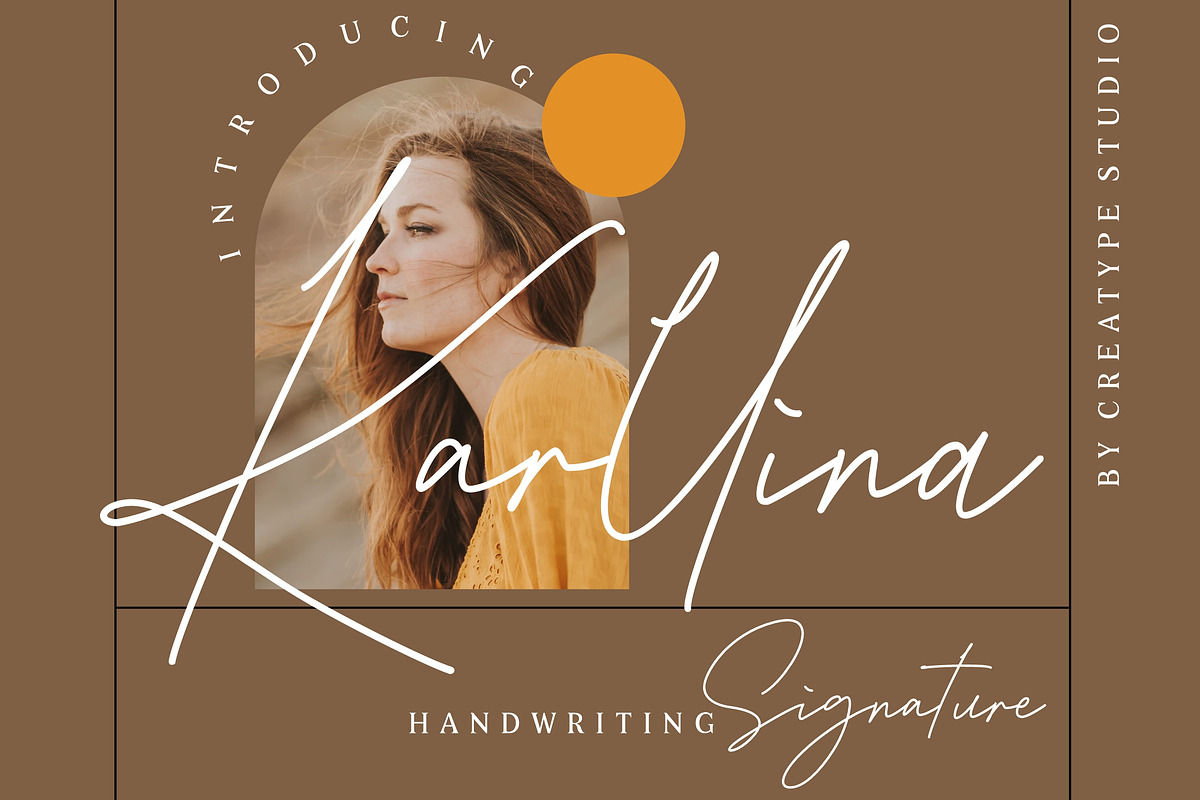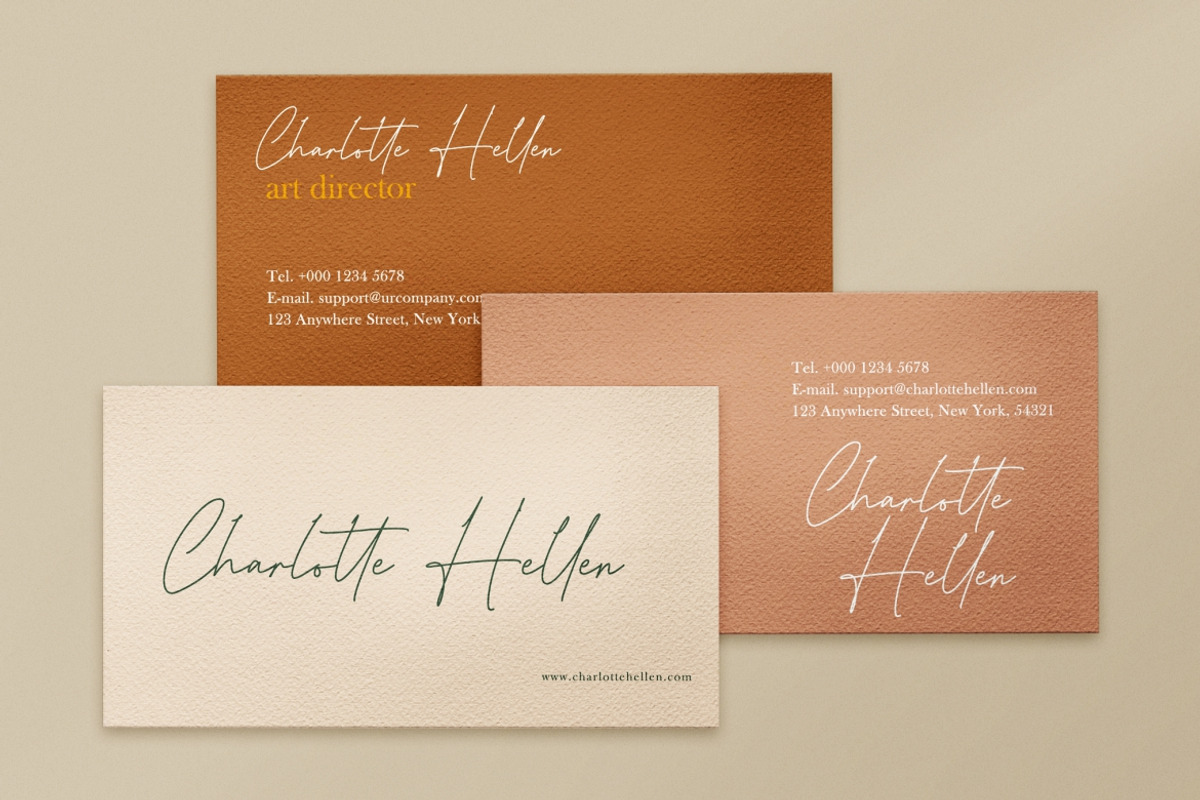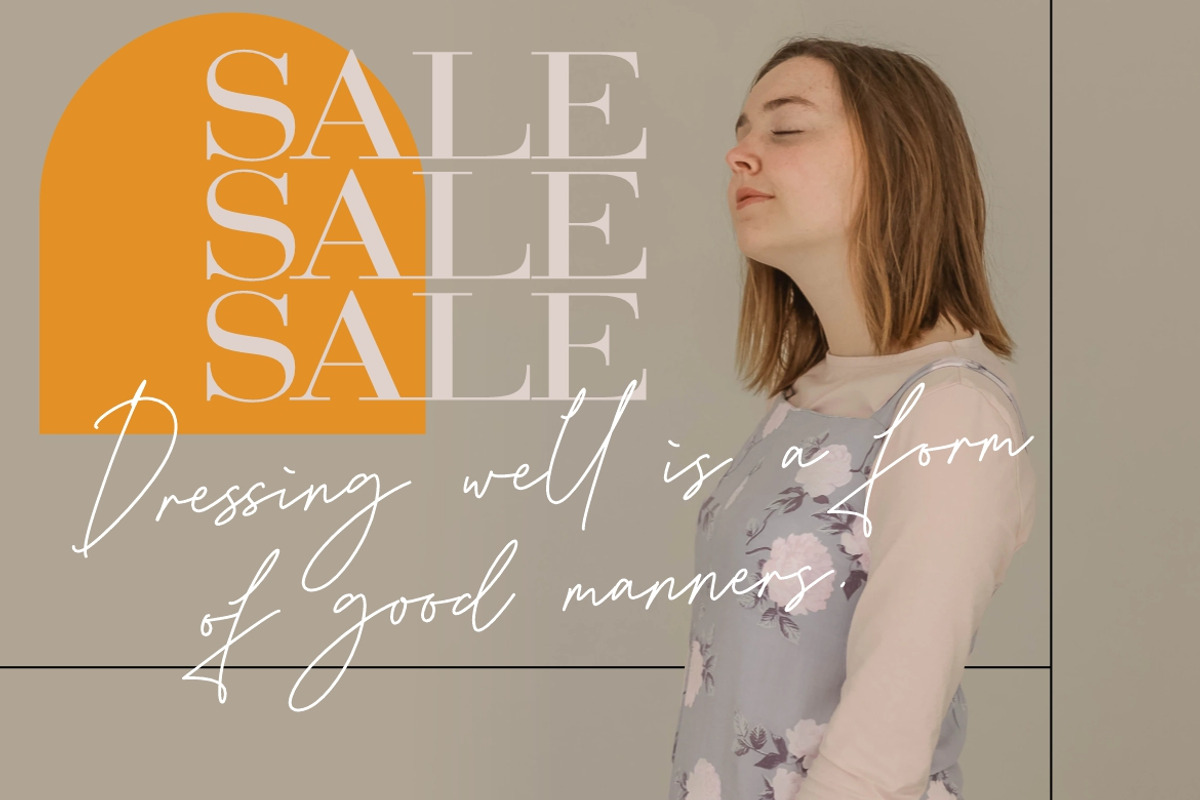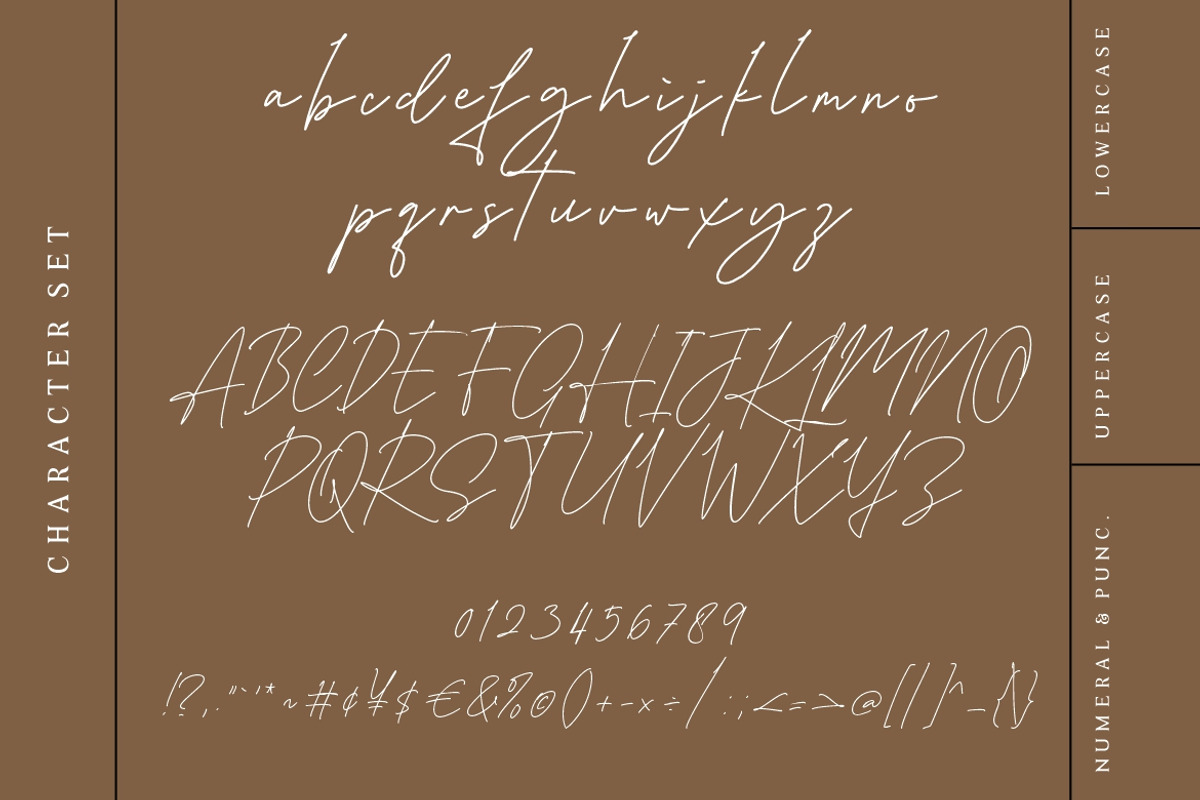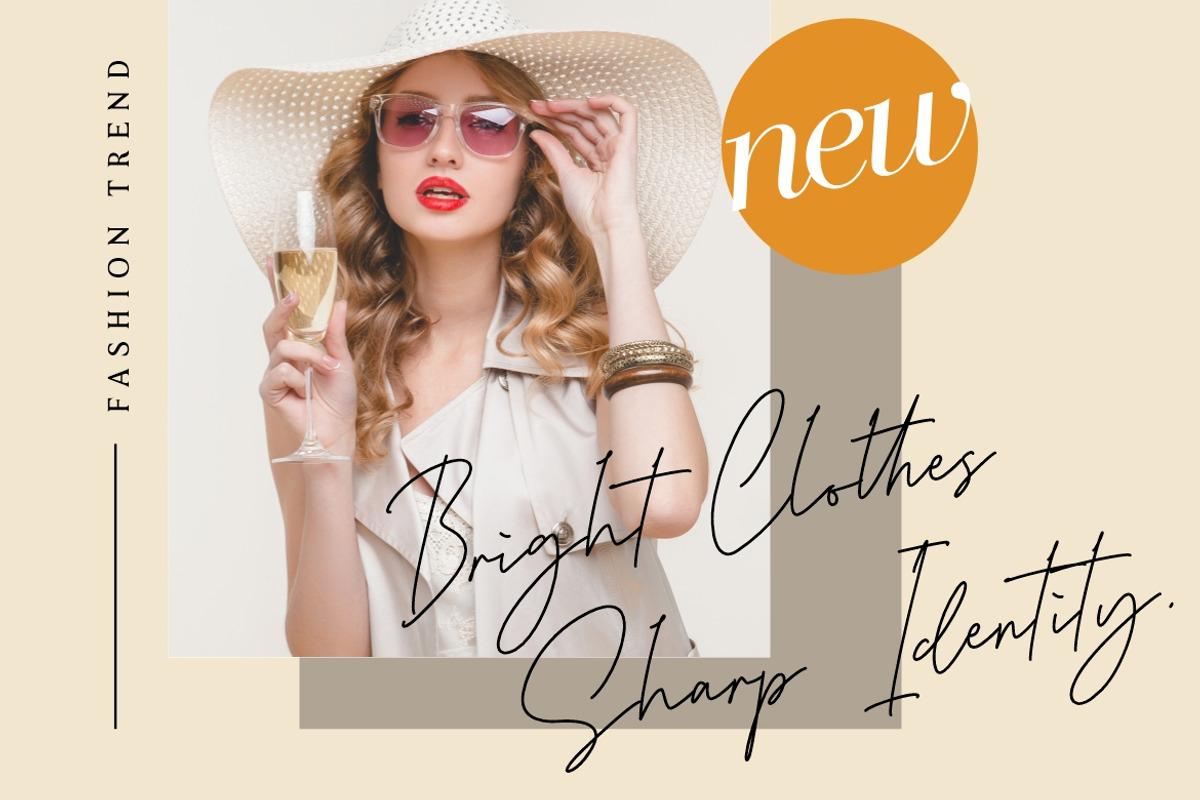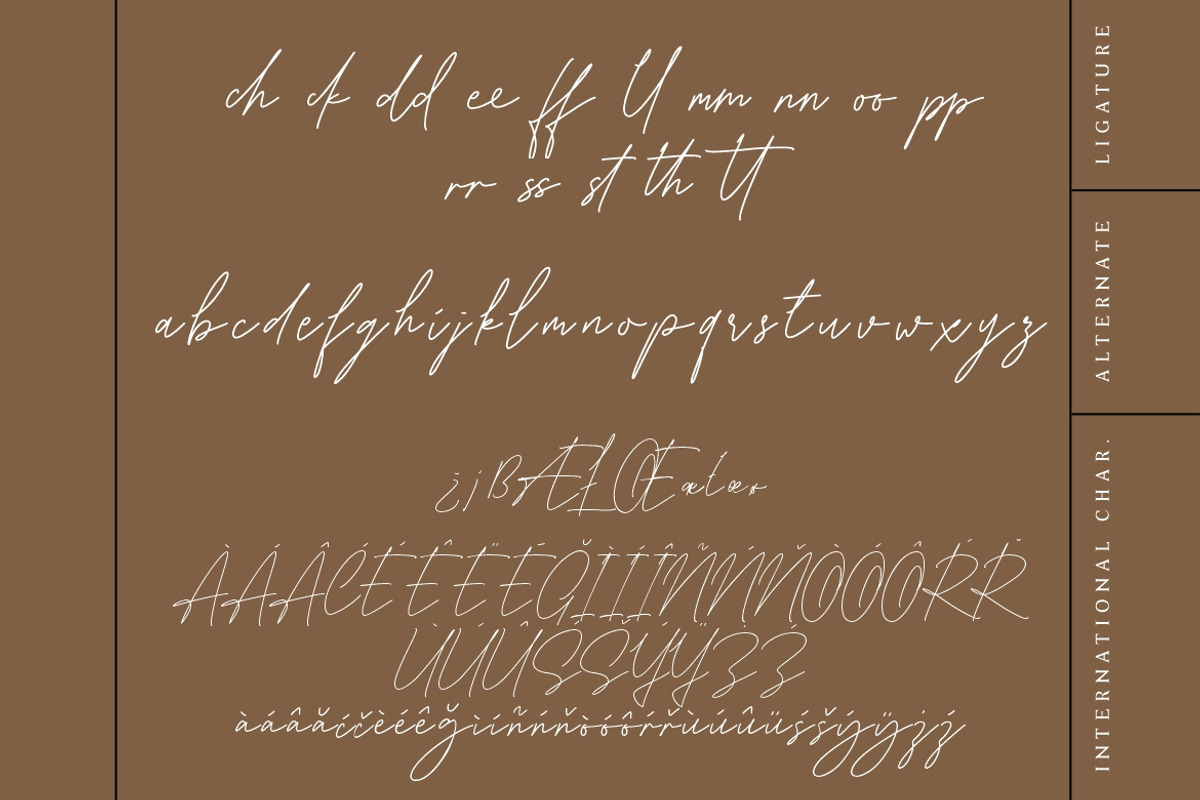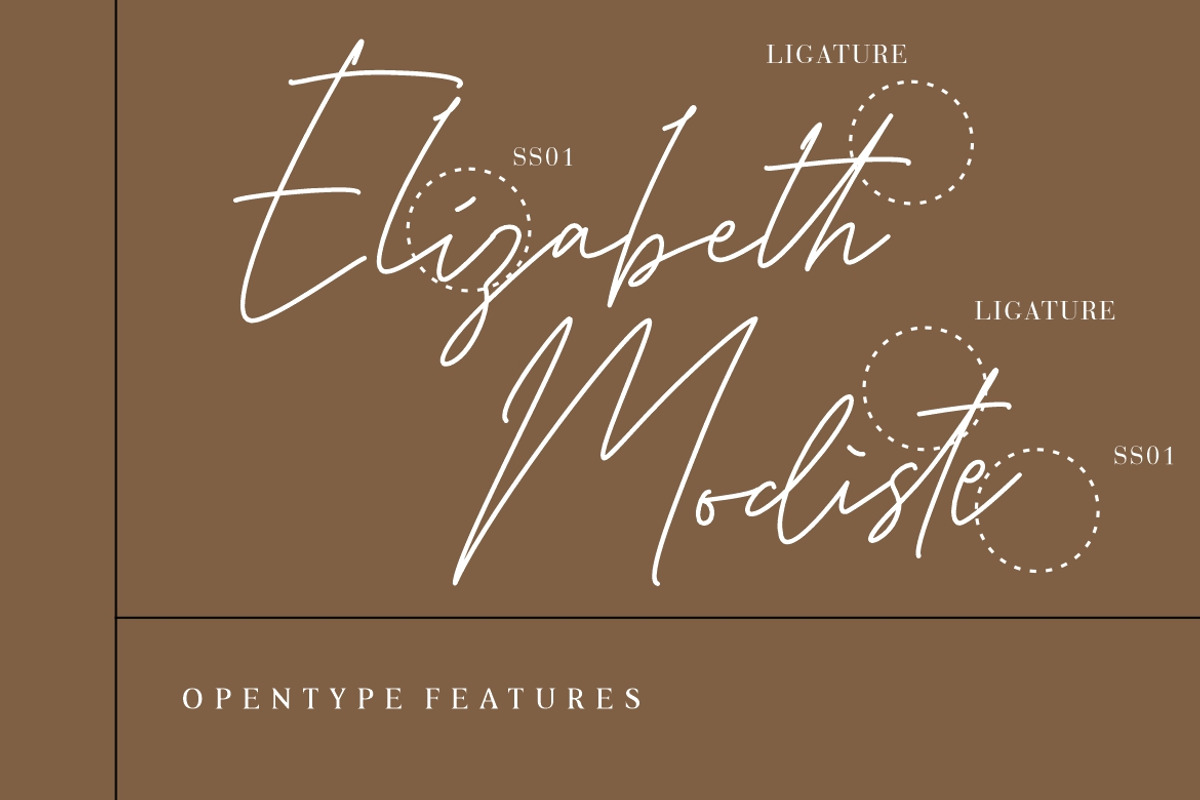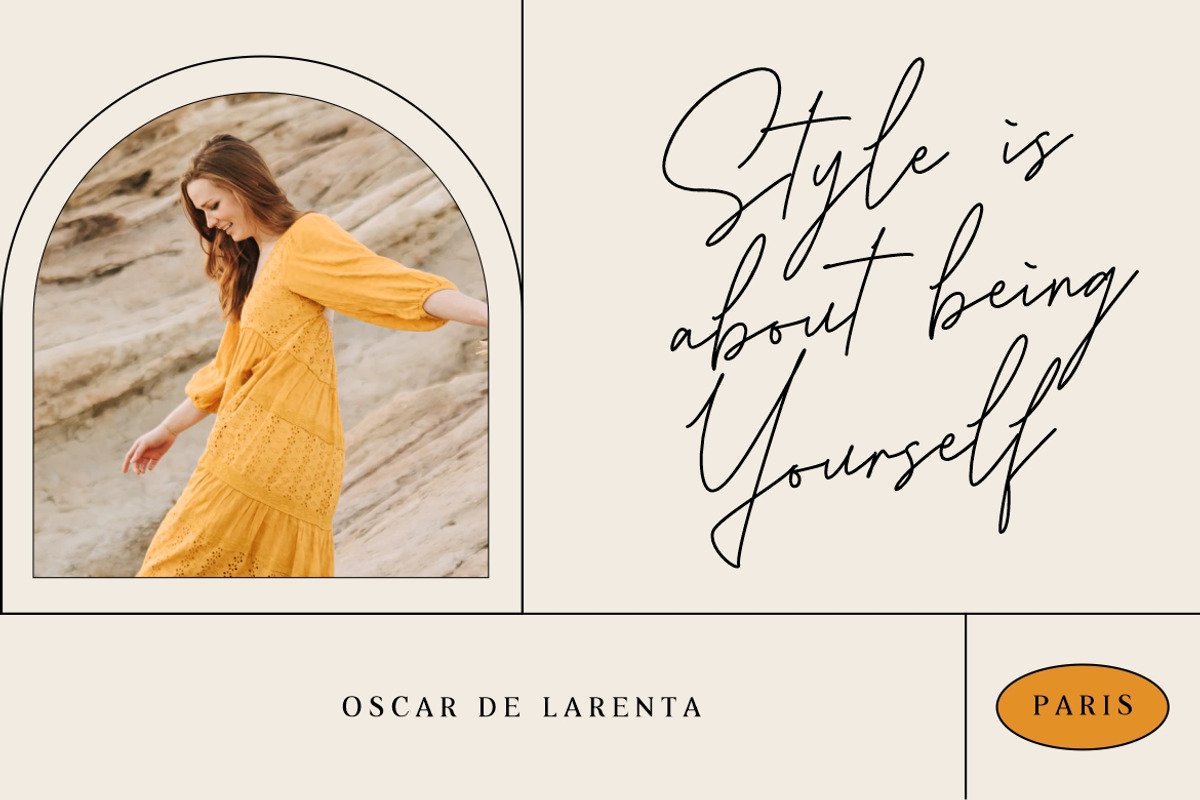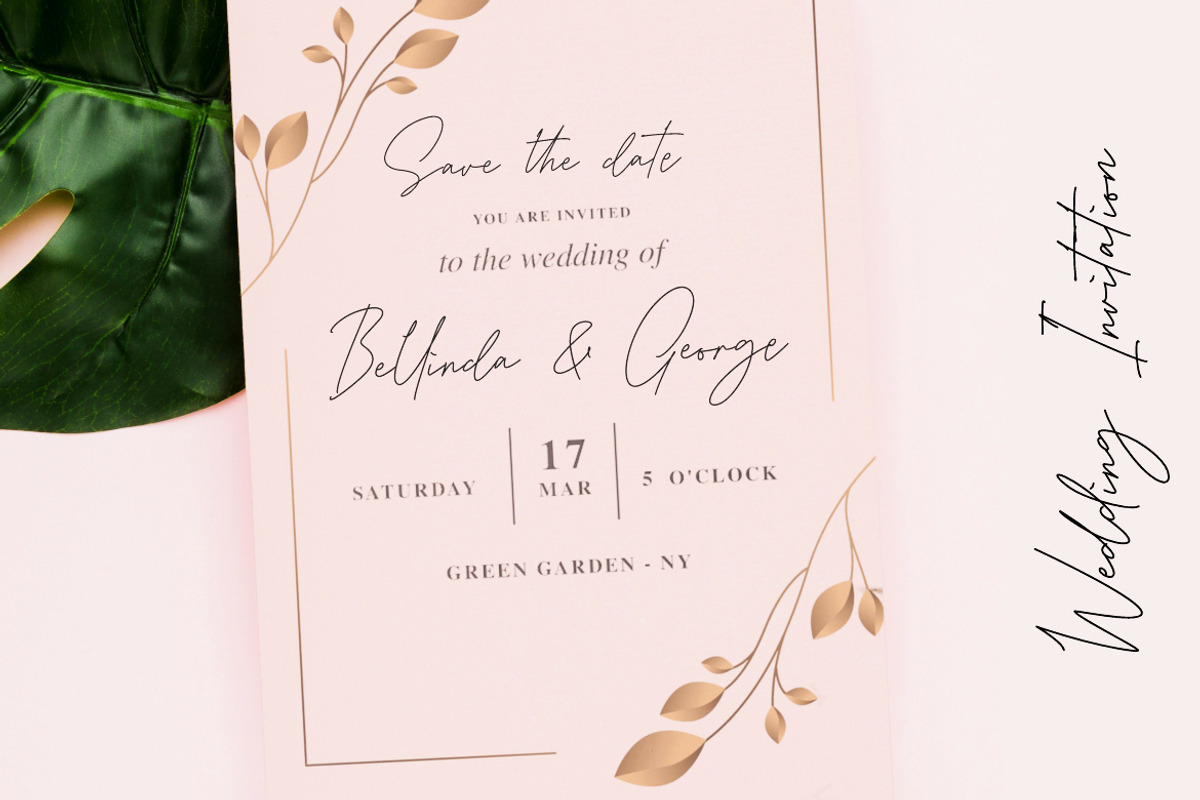
Karllina Handwriting Signature
Karllina is handwriting collection with natural signature script that looks elegant.
Karllina is perfect for branding projects, logo, wedding designs, social media posts, advertisements, product packaging, product designs, label, photography, watermark, invitation, stationery and any projects that need handwriting taste.
- Ligature & Alternate